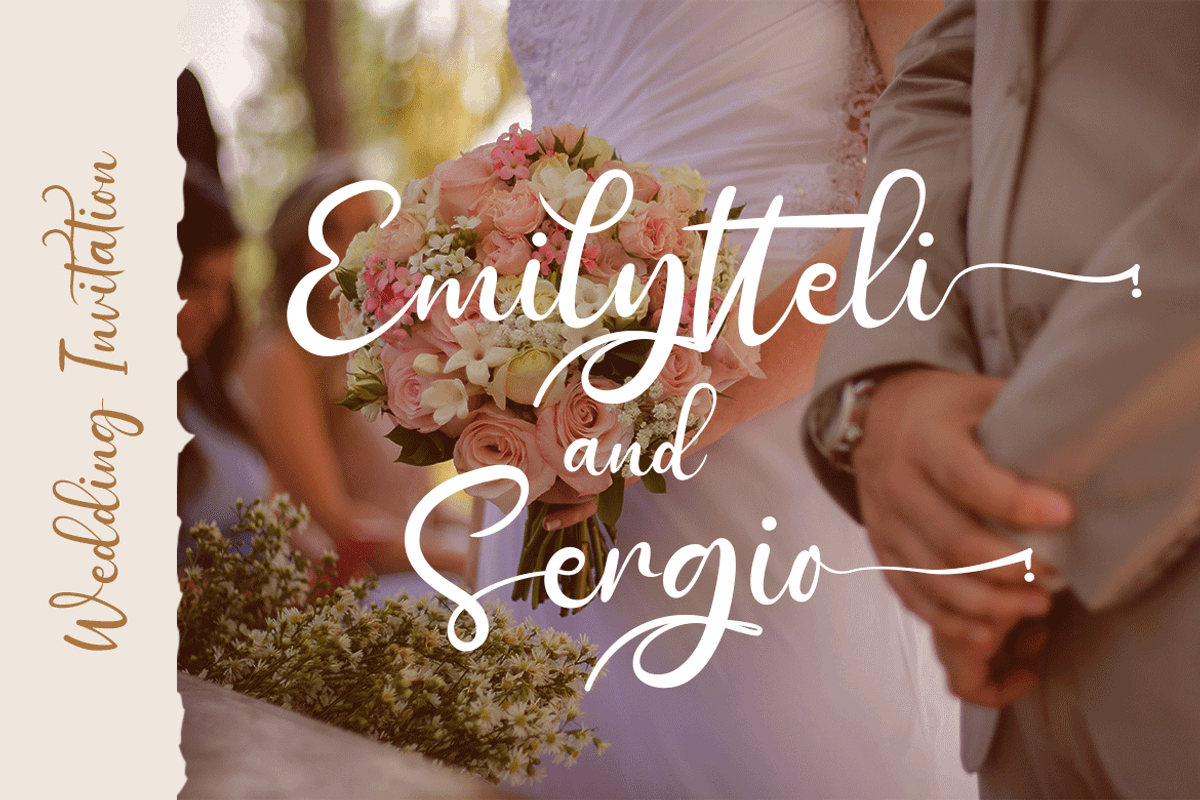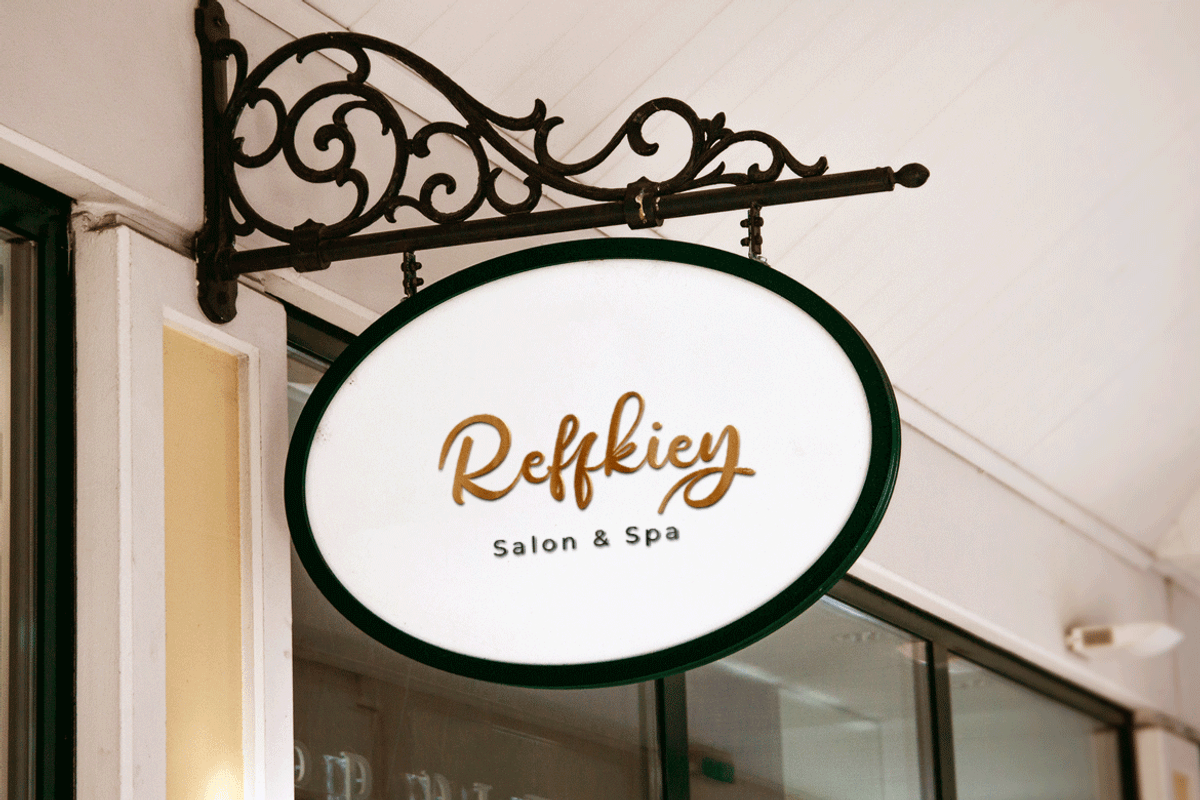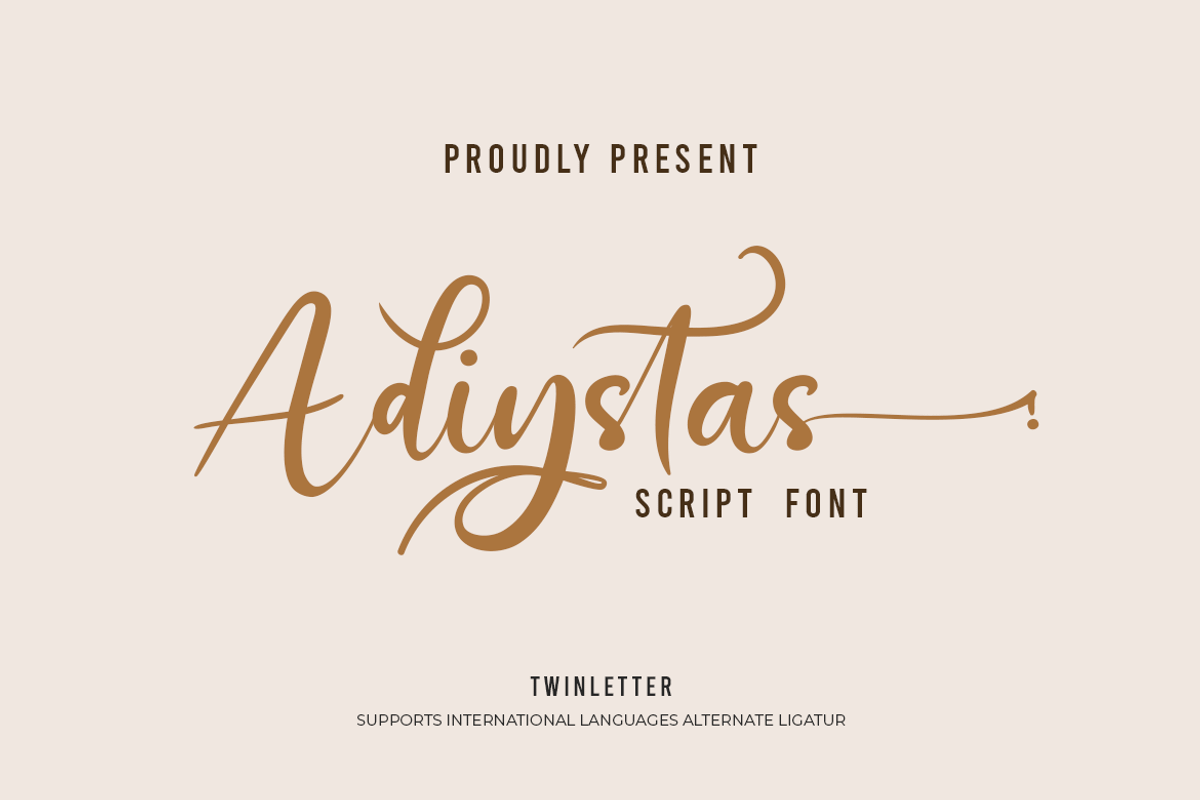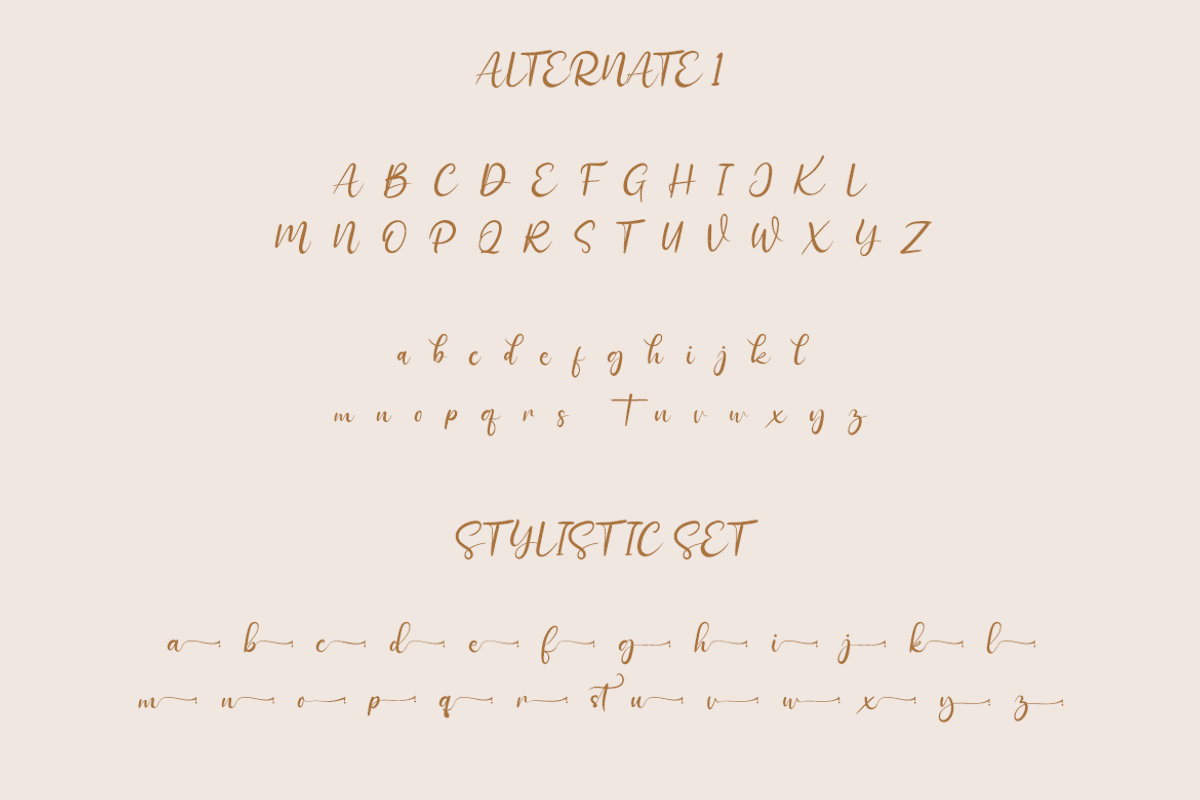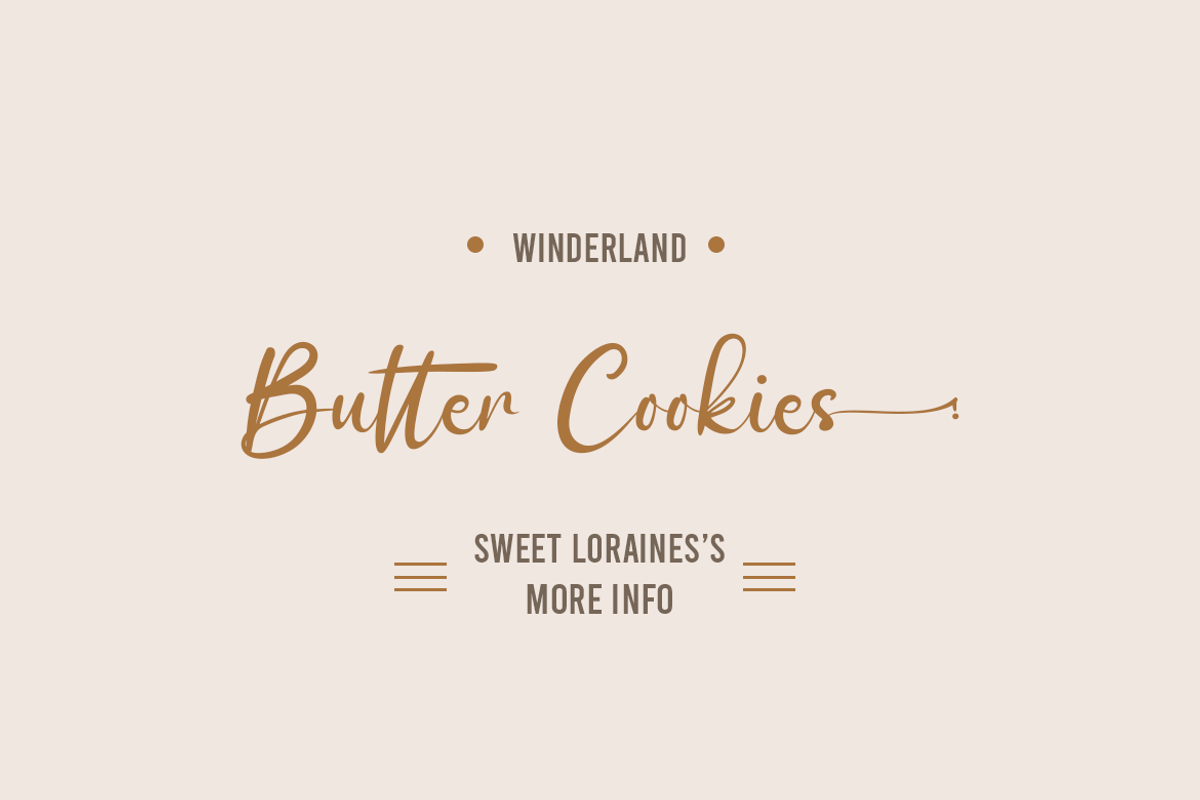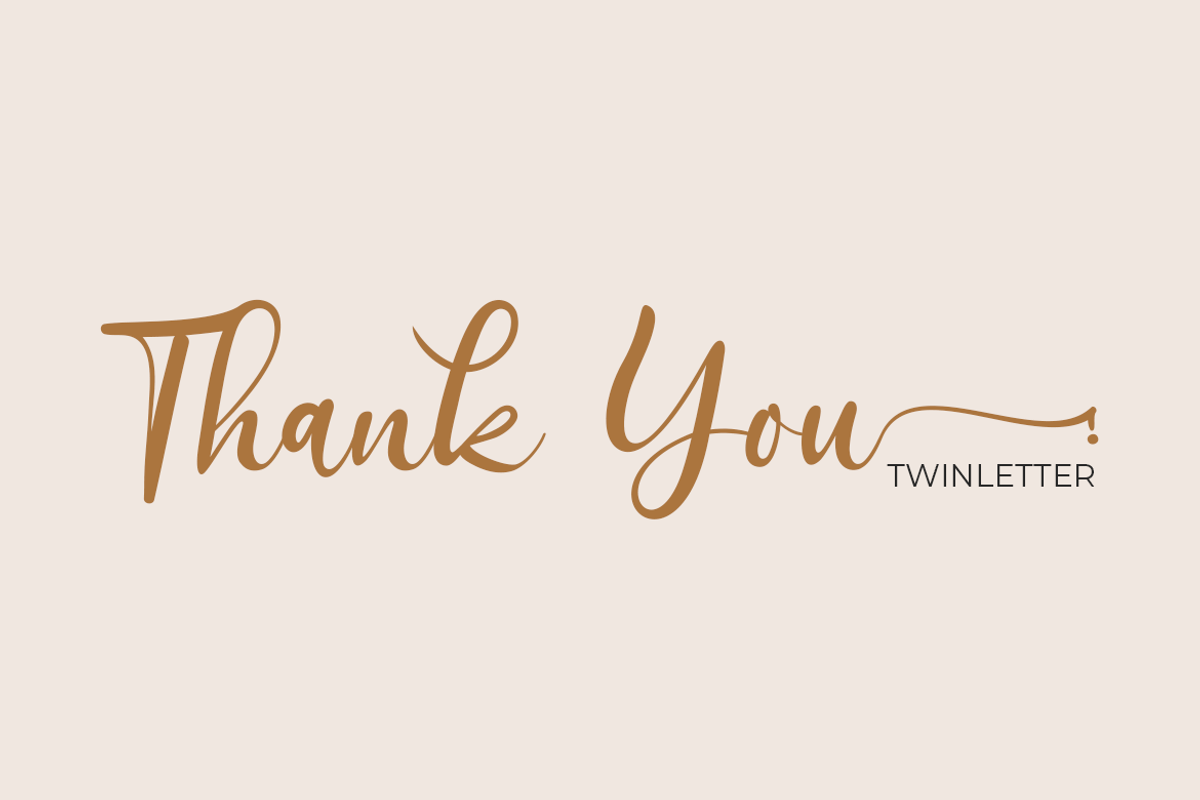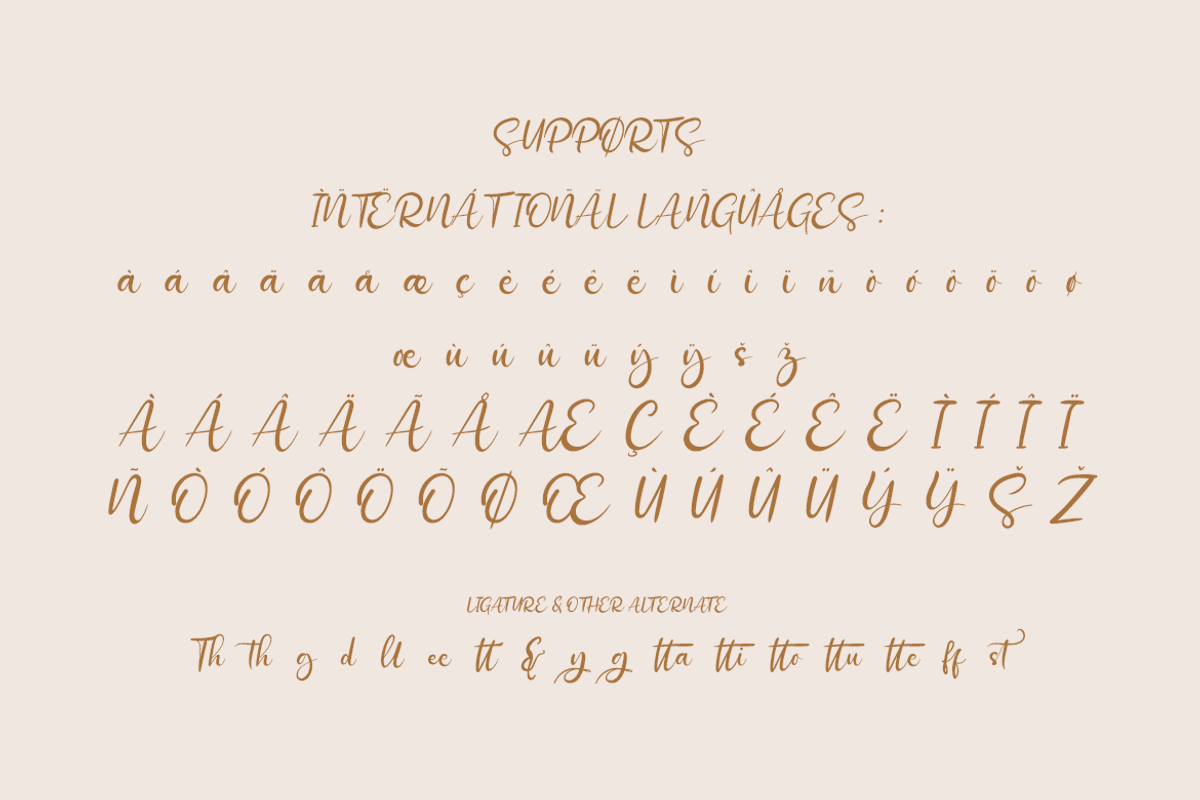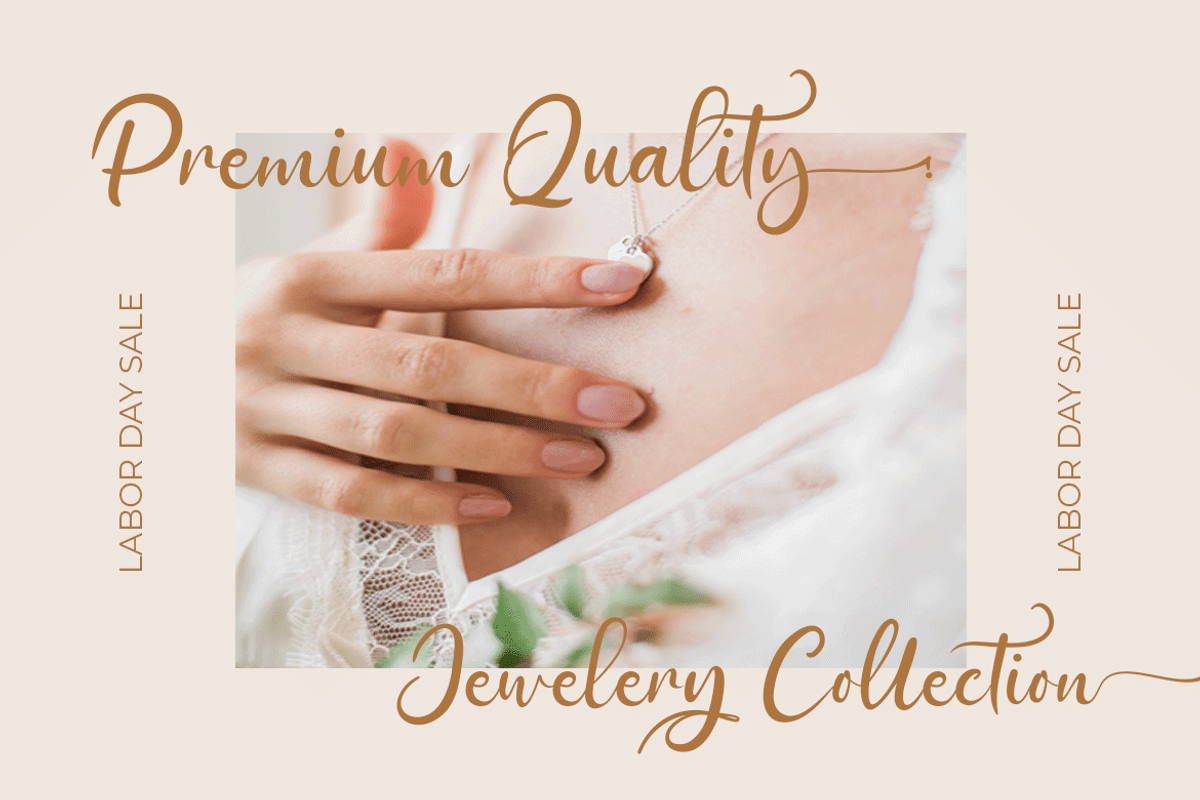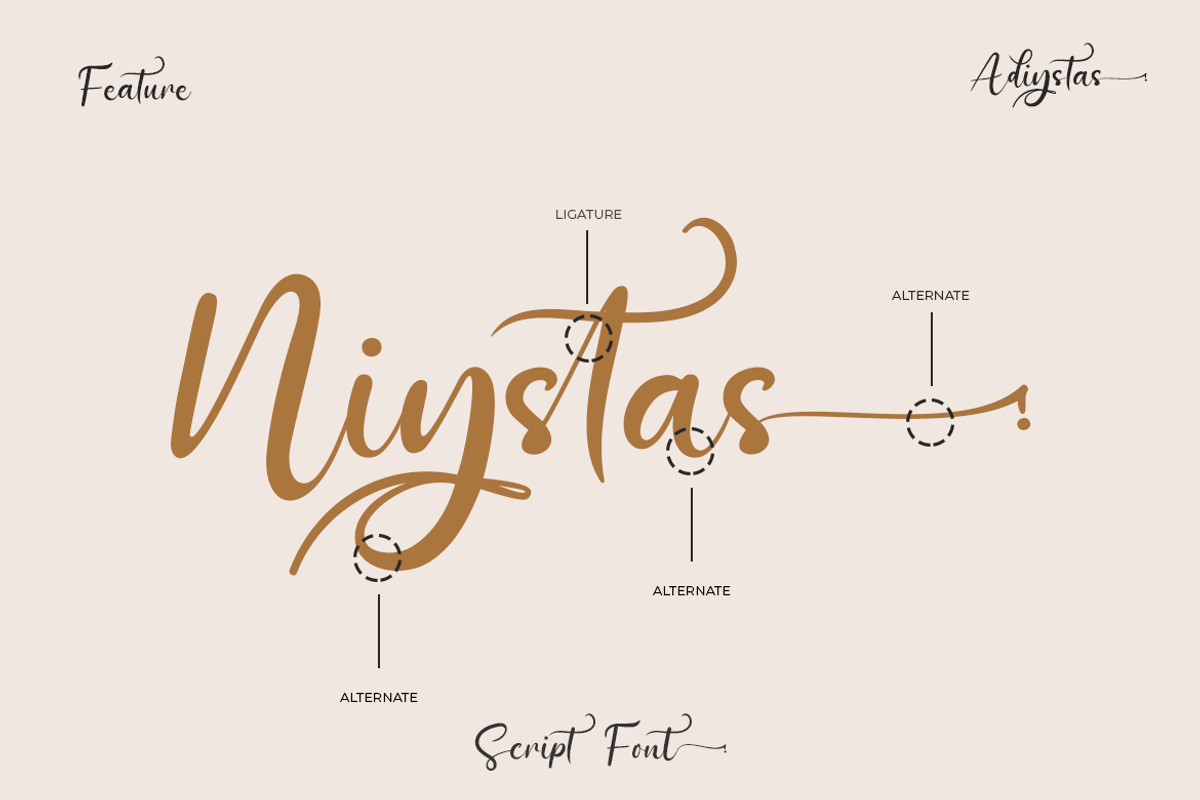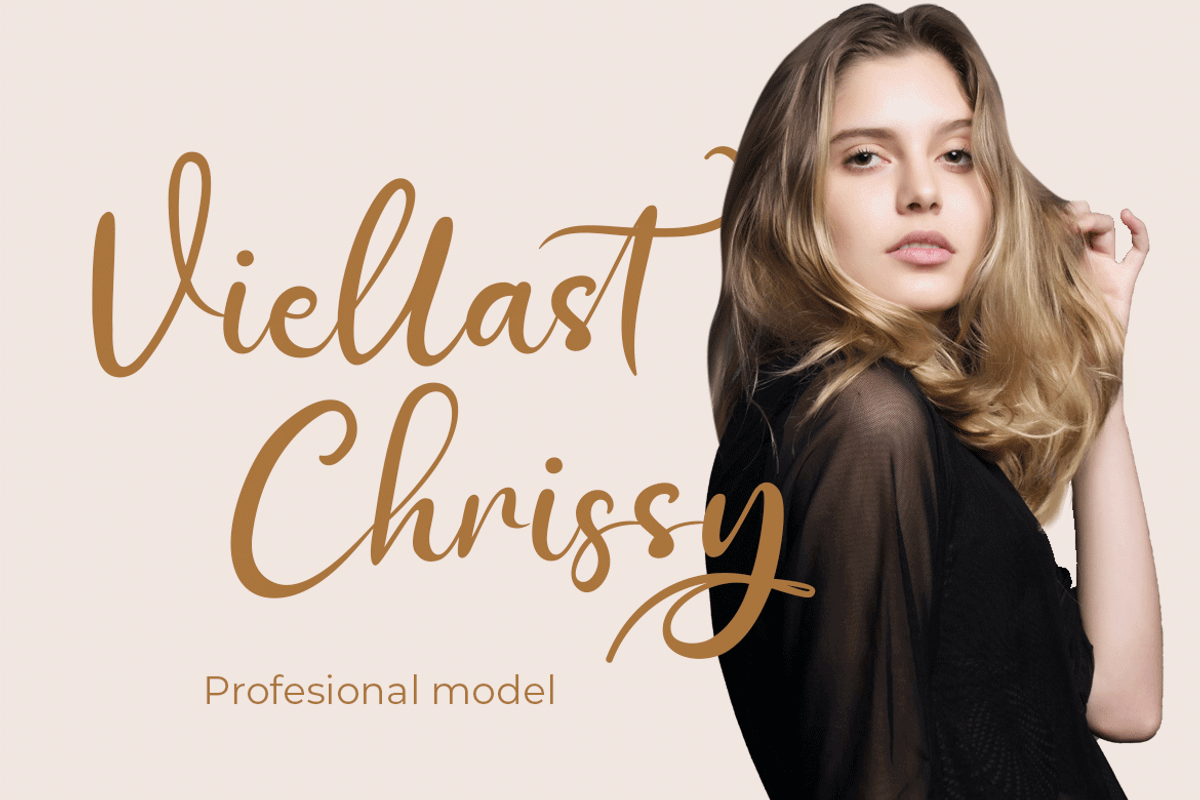
Adiystas
Adiystas is a dramatic signature font written in a cute, modern, and elegant style, with natural and beautiful strokes. This font in addition to having a dazzling and unique shape is also equipped with various options that support good and elegant results when you use it and your project.
This font is perfect for business cards, photography studios, autographs, interior designs, model names, coffee late, travel, weddings, cosmetics, jewelry, social media posts, product packaging, watermarks, special events, or anything else. Start using this font to add an authentic and heartfelt vibe to any design project.